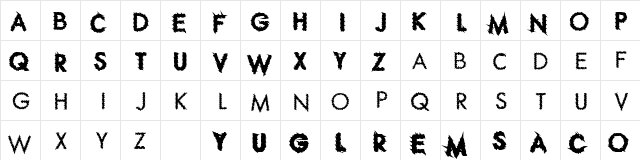
Ripple Crumb Regular
Design Context for Ripple Crumb Typeface
Ripple Crumb is a composed and adaptable typeface that performs quietly and consistently across a wide range of design contexts.